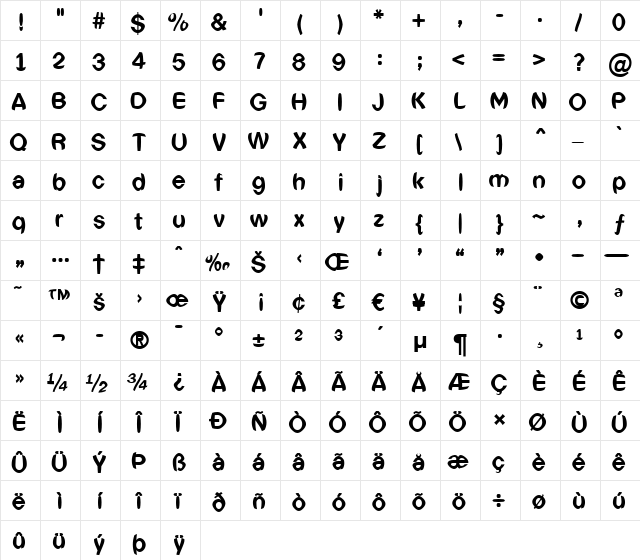
a_ReportSansBrl Bold
| Designer | W.Chufarofsky & M.Slutsker |
Design Context for a_ReportSansBrl Typeface
a_ReportSansBrl takes a measured approach to typography — its balanced proportions and neutral character make it a reliable workhorse for both digital and print work. The heavy weight commands attention and anchors typographic hierarchies.